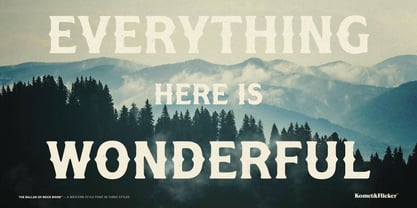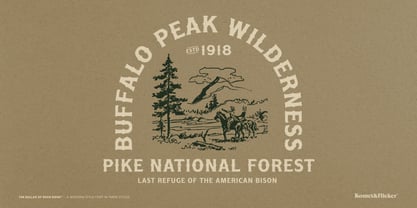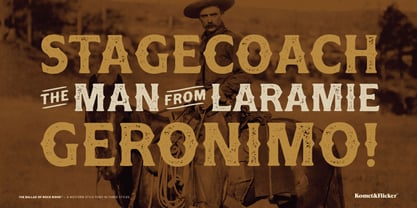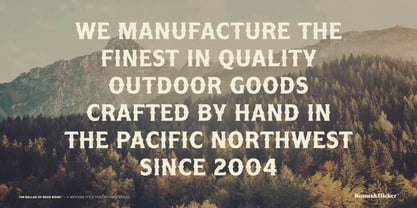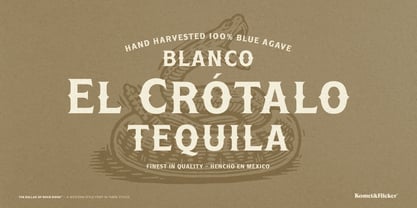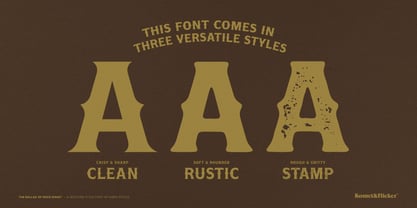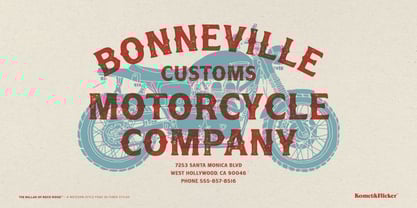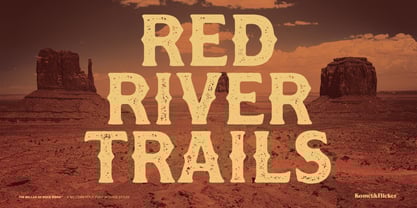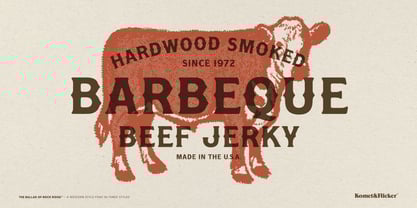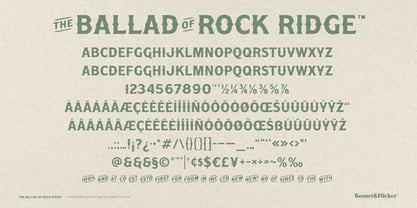
The Ballad of Rock Ridge
by Komet & Flicker
The The Ballad of Rock Ridge Font Family was designed by David Phillips and published by Komet & Flicker. The Ballad of Rock Ridge contains 3 styles and family package options. More about this family
Saddle up and hit the trail for bold typographic adventures with The Ballad of Rock Ridge, a rugged all-caps font inspired by the grit and charm of the Wild West. Whether you're branding a saloon-style bar, designing a vintage poster, or crafting an outlaw-themed logo, this font delivers authentic character with every letter.
Three Distinct Styles for Maximum Versatility
Clean – Crisp, sharp lines that command attention with classic Western confidence.
Rustic – Softened edges and rounded corners for a warm, worn-in look that evokes weathered wood and high plains winds.
Stamp – Rough and gritty textures that bring a rugged, hand-pressed, timeworn feel to your designs.
And to keep your designs flowing like a frontier ballad, this font also includes a set of 20 custom connecting words (like AND, OF, THE, FROM). In addition, we also include alternate characters for “G Q, $ and &”.
THIS FONT COMES IN THREE STYLES
• The Ballad of Rock Ridge Clean
• The Ballad of Rock Ridge Rustic
• The Ballad of Rock Ridge Stamp
THIS FONT INCLUDES
• Full A-Z basic latin characters
• Select European specific characters
• Numbers, punctuation, and select symbols
• A set of 20 custom connector words
Designers: David Phillips
Foundry: Komet & Flicker